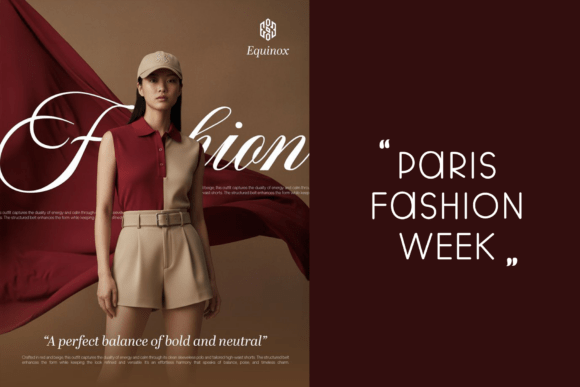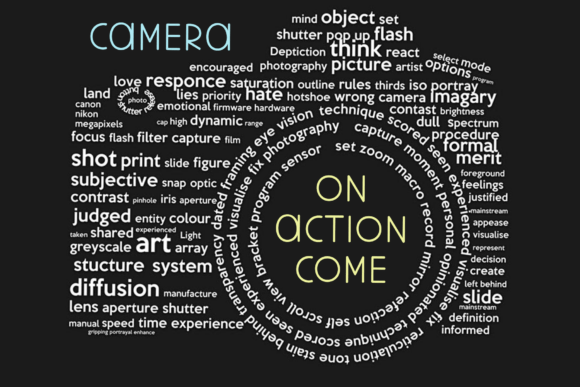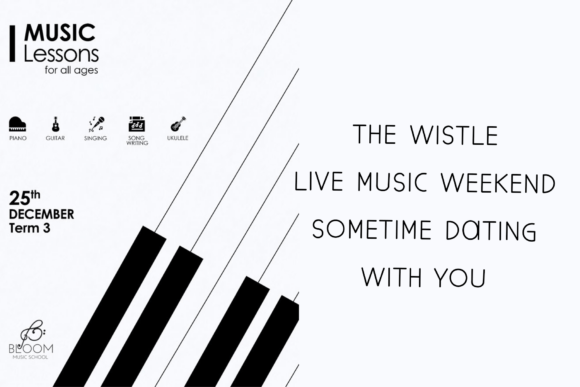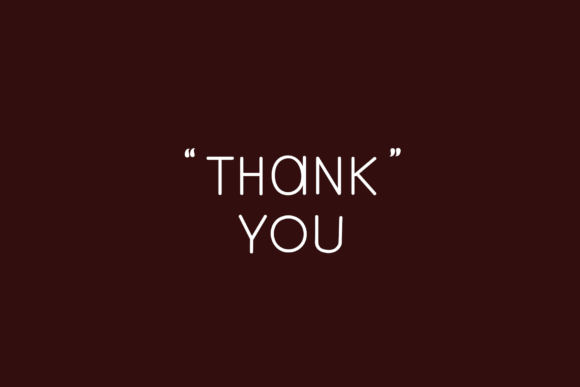
Introducing Credit Score Font: The Epitome of Modern Simplicity and Professionalism
In the realm of typography, the right font can make all the difference in conveying a message, establishing a brand identity, or creating a lasting impression. For designers and crafters seeking a typeface that embodies modern simplicity, effortless style, and professionalism, look no further than the Credit Score font. This clean, monolinear sans serif font is specifically designed to meet the demands of minimalist branding, financial technology interfaces, modern editorial layouts, and corporate stationery.
Design Philosophy: Modern Simplicity and Effortless Style
The Credit Score font is built on a design philosophy that prioritizes openness, clarity, and balance. Its open, airy letterforms feature perfect circular curves and consistent stroke widths, resulting in a balanced and professional aesthetic. This thoughtful design approach ensures that the font is not only visually appealing but also highly legible, making it an excellent choice for a wide range of applications.
Key Features of Credit Score Font
- Clean and Monolinear Design: The font boasts a clean, monolinear design that exudes modernity and sophistication.
- Open and Airy Letterforms: The open, airy letterforms provide a sense of freedom and elegance, making the font perfect for designs that require a touch of refinement.
- Perfect Circular Curves: The perfect circular curves add a level of precision and attention to detail, giving the font a professional and polished look.
- Consistent Stroke Widths: The consistent stroke widths ensure that the font remains balanced and harmonious, even at various sizes.
Versatility and Applications
The Credit Score font is an incredibly versatile typeface that can be used in a variety of contexts. Some of its ideal applications include:
- Minimalist Branding: The font’s clean and modern design makes it perfect for minimalist branding, allowing businesses to establish a strong and contemporary visual identity.
- Financial Technology Interfaces: The font’s professionalism and legibility make it an excellent choice for financial technology interfaces, where clarity and trustworthiness are paramount.
- Modern Editorial Layouts: The font’s airy and elegant design makes it well-suited for modern editorial layouts, adding a touch of sophistication to articles, magazines, and publications.
- Corporate Stationery: The font’s balanced and professional aesthetic makes it an excellent choice for corporate stationery, such as business cards, letterheads, and envelopes.
The Credit Score font offers numerous benefits for designers and crafters, including:
- Easy to Read and Legible: The font’s clean design and consistent stroke widths ensure that it remains easy to read and legible, even at small sizes.
- Highly Versatile: The font’s versatility allows designers and crafters to use it in a wide range of applications, from digital interfaces to print materials.
- Time-Saving: The font’s modern and professional design saves designers and crafters time, as it eliminates the need to create custom typography from scratch.
- Cost-Effective: The font’s versatility and wide range of applications make it a cost-effective solution for designers and crafters, reducing the need for multiple typefaces.
In conclusion, the Credit Score font is an exceptional typeface that embodies modern simplicity, effortless style, and professionalism. Its clean and monolinear design, open and airy letterforms, perfect circular curves, and consistent stroke widths make it an excellent choice for designers and crafters seeking a versatile and reliable font. Whether used in minimalist branding, financial technology interfaces, modern editorial layouts, or corporate stationery, the Credit Score font is sure to make a lasting impression.